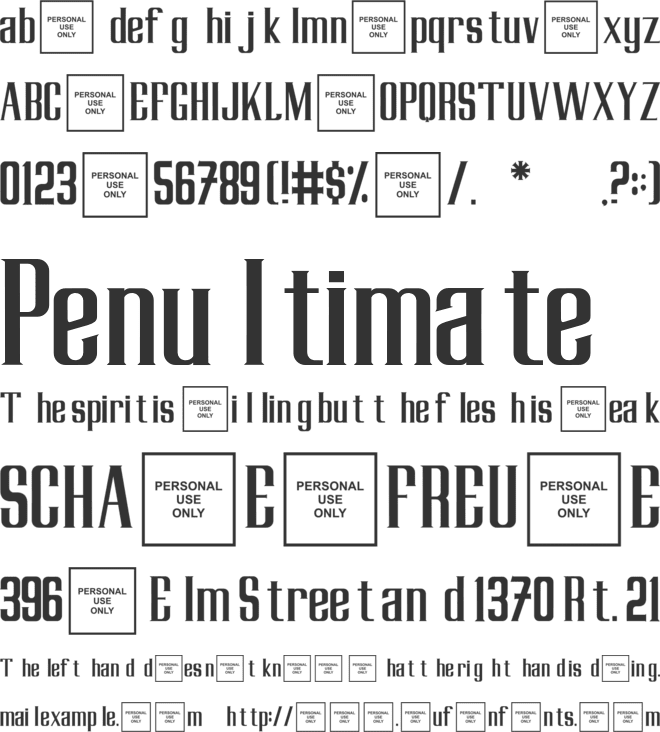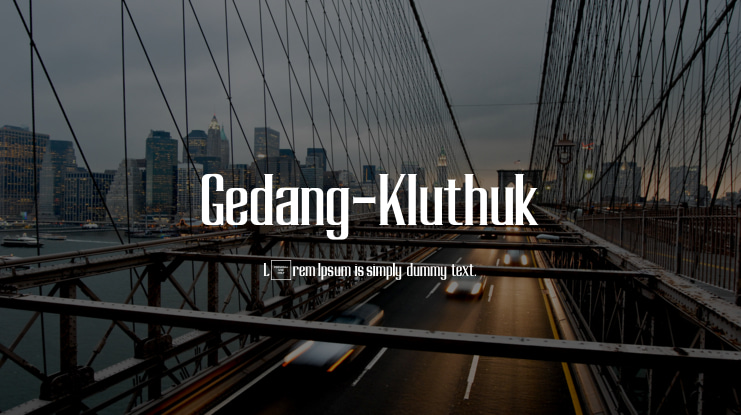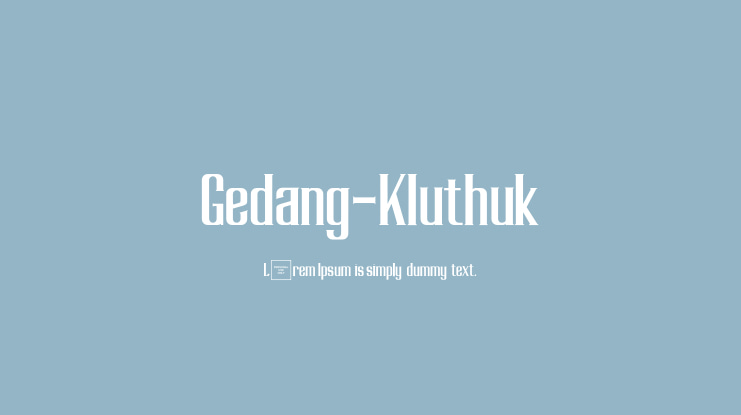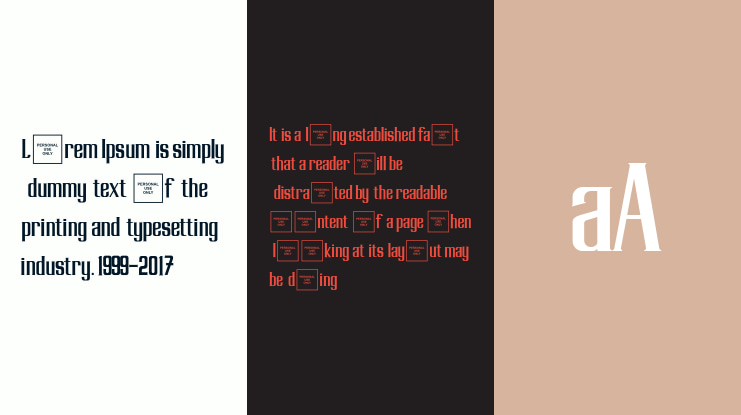
Gedang-Kluthuk Font
Gedang Kluthuk is a Modern Display Font. With a strong character, this font will make your designs look perfect. Perfect for adventure poster designs, t-shirt designs, and matches well with natural backgrounds.